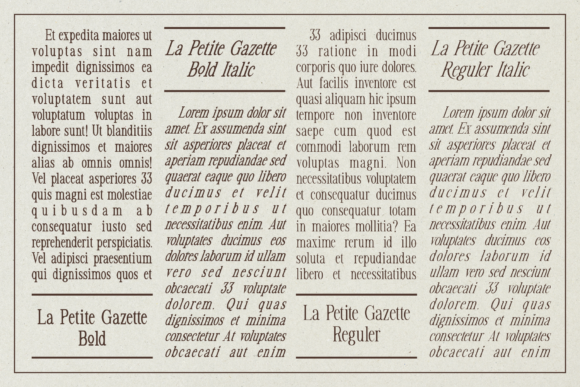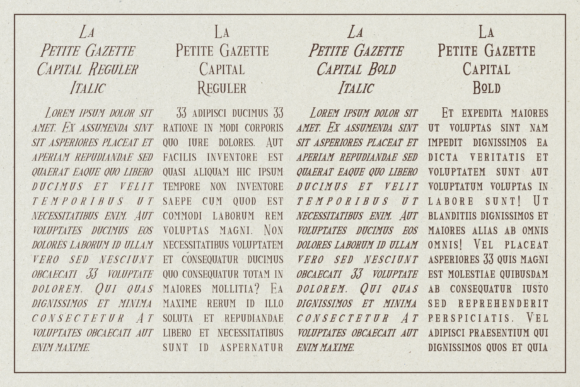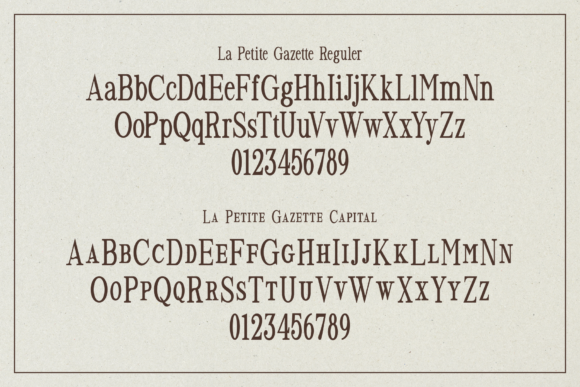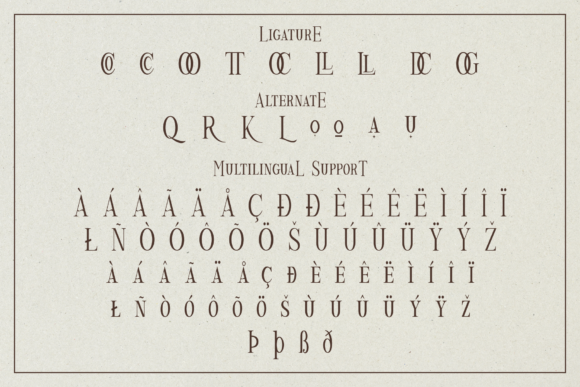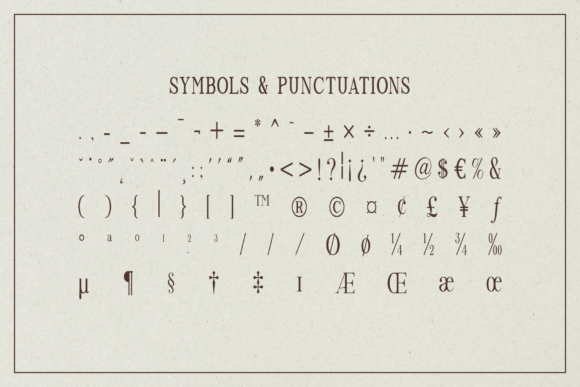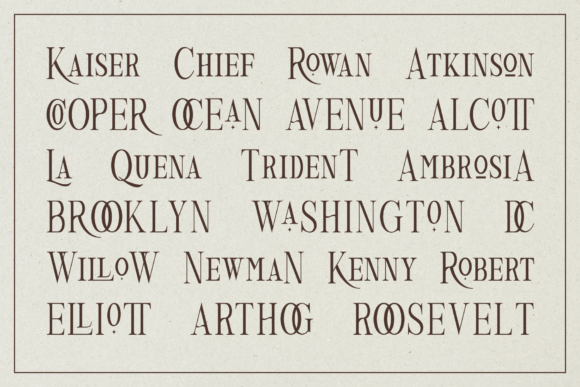
Introduction to La Petite Gazette Font
La Petite Gazette is an elegant and formal serif font.
It has a vintage, classy, and elegant atmosphere La Petite Gazette can easily be matched to an incredibly large set of projects and is good for communicating your brands.
Key Features of La Petite Gazette Font
Why Choose La Petite Gazette Font?